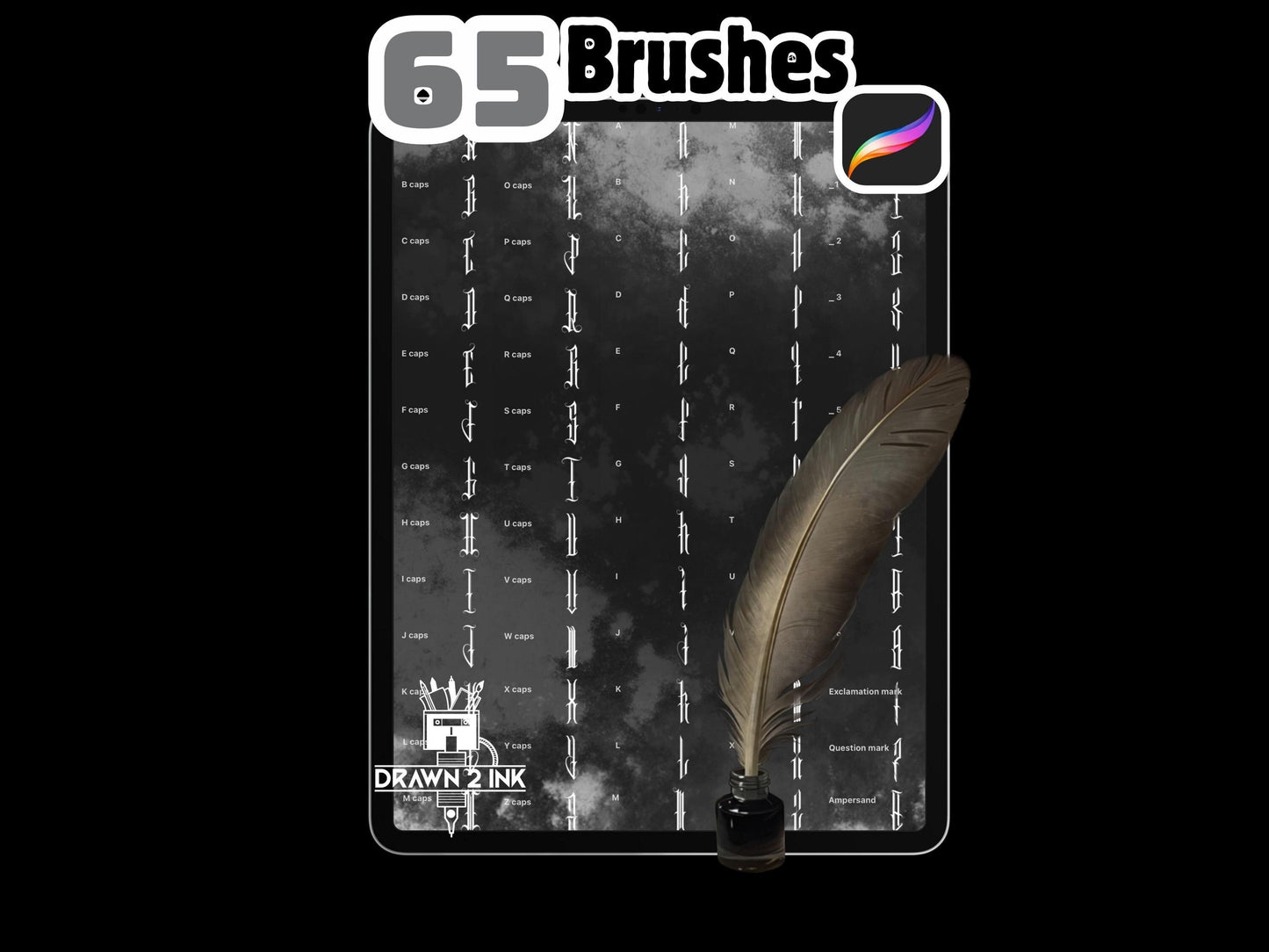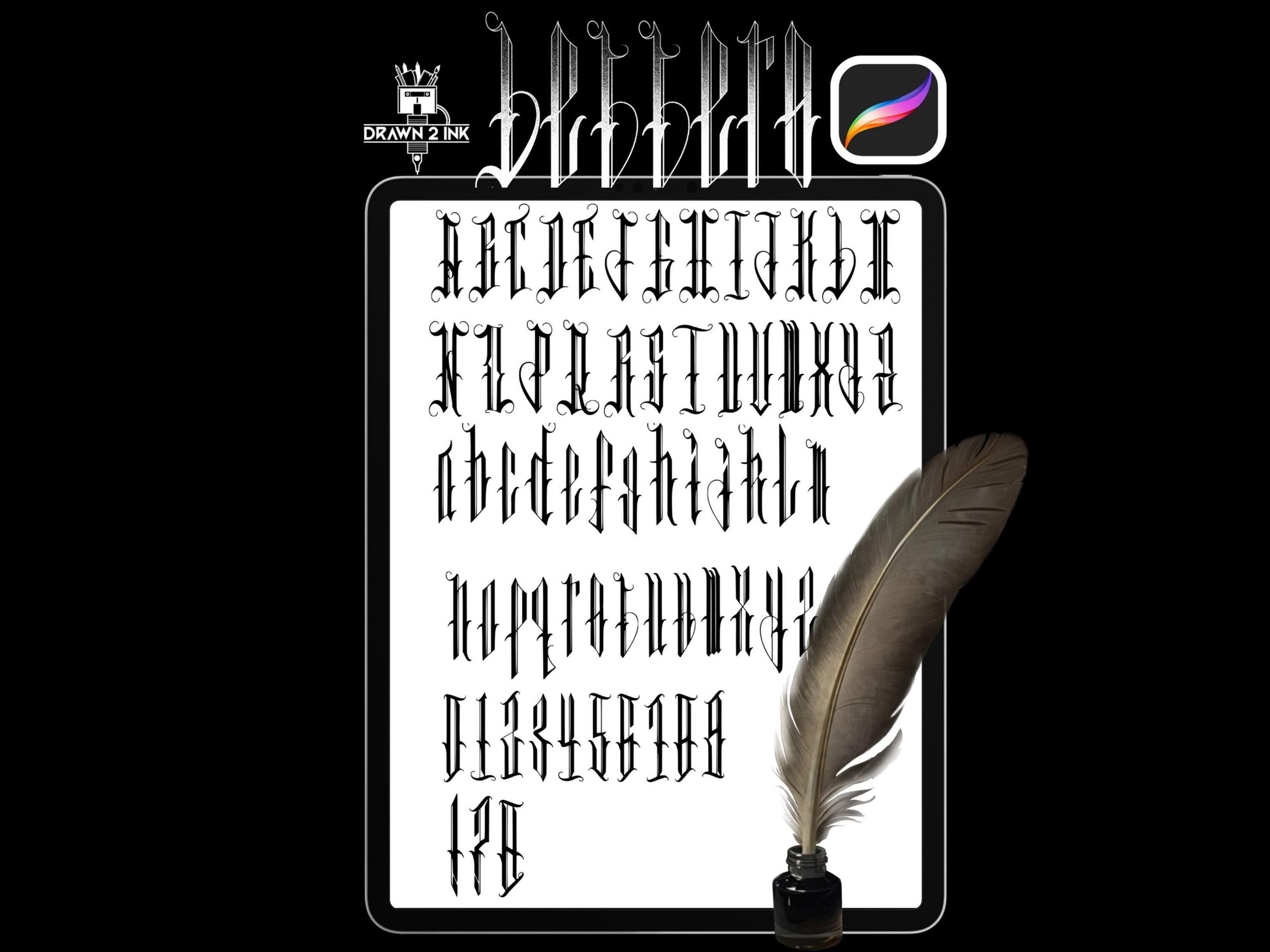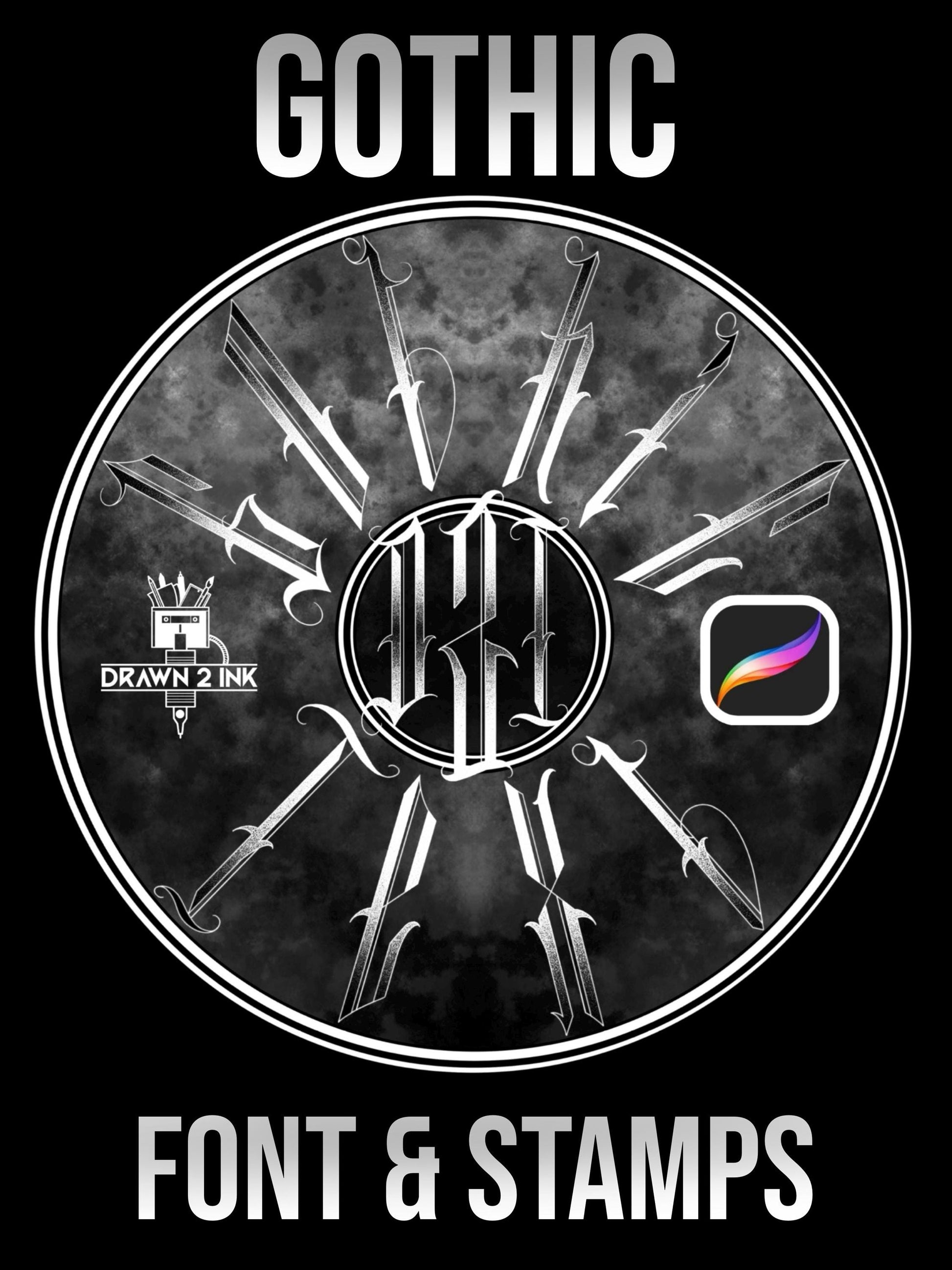
Gothic Calligraphy Font, Tattoo style + Procreate Stamp Brush Set
This set gives you a full Gothic calligraphy alphabet ready to use in both Procreate and as a standard installable font. Designed for tattoo artists, calligraphers, and digital illustrators who want bold, dramatic lettering that still reads beautifully.
Whether you're sketching tattoo designs, adding titles to artwork, or creating gothic-style logos, this set makes it effortless to place clean, consistent letters with authentic form and flow.
✔ Full uppercase alphabet
✔ Full lowercase alphabet
✔ Numbers 0–9
✔ ! ? & punctuation symbols